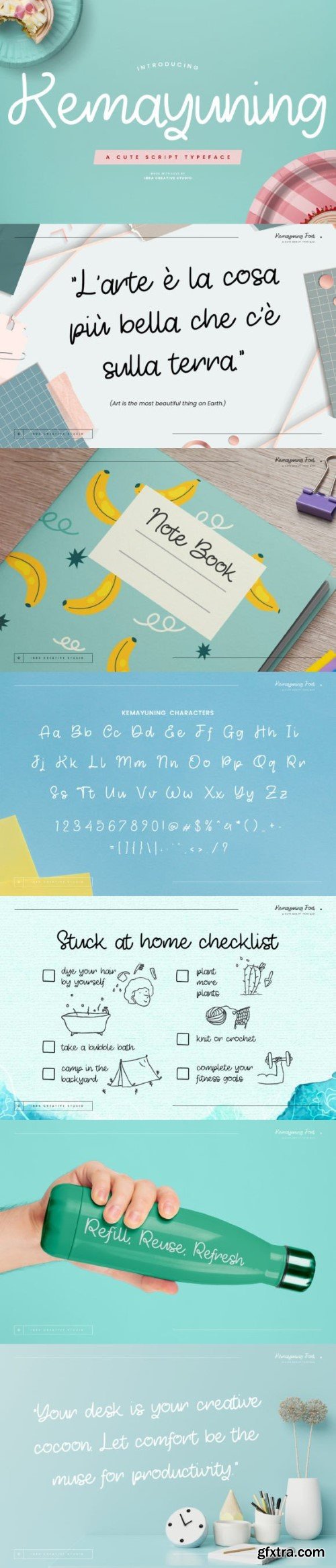
Kemayuning, a delightful script typeface, encapsulates the essence of cuteness with its whimsical and flowing characters. Each letter is crafted with a playful touch, resembling handwritten strokes that dance across the page. The font exudes an inherent charm, making it perfect for designs that seek to infuse a sense of joy and warmth. Whether adorning invitations, greeting cards, or creative projects, Kemayuning adds a sweet and endearing flair, effortlessly capturing the spirit of innocence and creativity in every curve and loop.